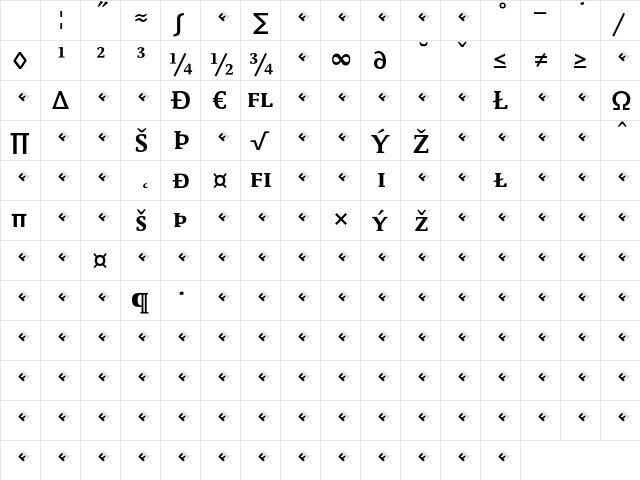
Complete Parable-BoldSCExpert Regular glyph index. Displaying only characters natively supported by Parable-BoldSCExpert Regular font.
Parable-BoldSCExpert is a composed and adaptable typeface that performs quietly and consistently across a wide range of design contexts. Its bold stroke weight gives it real presence on the page.